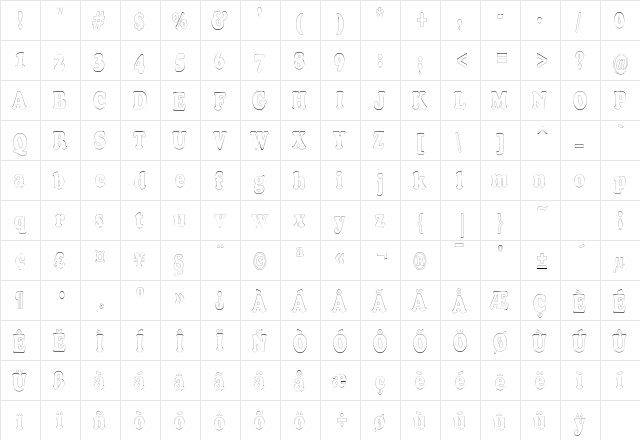
CopperfieldOutlineCondensed Regular
Design Context for CopperfieldOutlineCondensed Typeface
CopperfieldOutlineCondensed is built around its visual character rather than neutral utility — its distinctive forms are designed to make an impression at display sizes.
Font Pairing: Pair with a clean neutral sans-serif for body copy to let CopperfieldOutlineCondensed's character lead without overwhelming the composition.
Pro Tip: Use CopperfieldOutlineCondensed exclusively at display sizes — it was designed to be seen, not read at length. Let a neutral companion handle body copy.